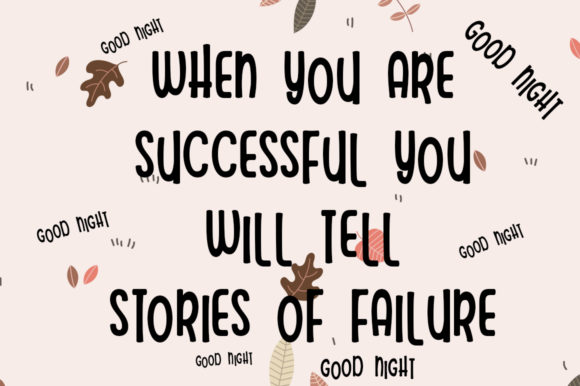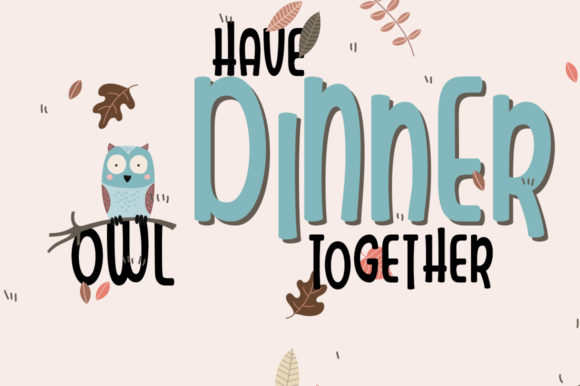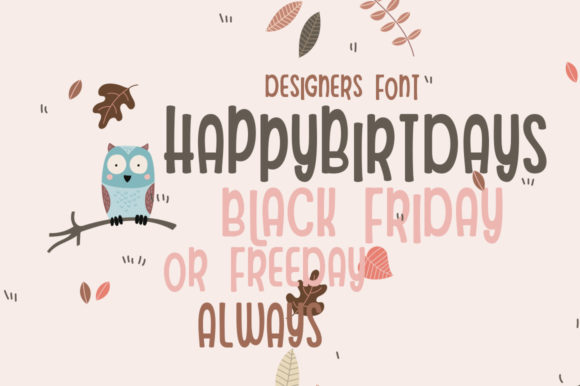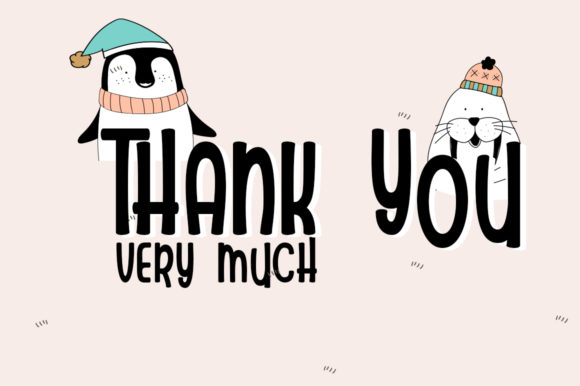
Fisher Ship Font: Elevate Your Designs with a Unique and Friendly Display Font
Are you tired of using the same old fonts in your designs? Look no further than the Fisher Ship Font, a unique and interesting display font that’s sure to take your favorite designs to the next level. With its asymmetrical and friendly design, Fisher Ship Font is perfect for designers and crafters looking to add a touch of personality to their work.
What is Fisher Ship Font?
Fisher Ship Font is a display font that’s designed to make a statement. Its asymmetrical design gives it a playful and dynamic feel, while its friendly aesthetic makes it approachable and inviting. This font is perfect for use in a variety of design projects, from logos and branding to posters and social media graphics.
Key Features of Fisher Ship Font
• Unique and interesting design: Fisher Ship Font’s asymmetrical design sets it apart from more traditional fonts, making it perfect for designers looking to add some personality to their work.
• Asymmetrical and friendly aesthetic: The font’s friendly design makes it approachable and inviting, while its asymmetrical design gives it a dynamic feel.
• Perfect for display text: Fisher Ship Font is designed specifically for use in display text, making it perfect for headlines, titles, and other prominent text elements.
• Easy to read: Despite its unique design, Fisher Ship Font is easy to read, even at smaller sizes.
How to Use Fisher Ship Font in Your Designs
Fisher Ship Font is a versatile font that can be used in a variety of design projects. Here are a few ideas to get you started:
• Logos and branding: Use Fisher Ship Font to create a unique and memorable logo for your business or brand.
• Posters and flyers: Add some personality to your posters and flyers with Fisher Ship Font’s playful and dynamic design.
• Social media graphics: Use Fisher Ship Font to create eye-catching social media graphics that will help your content stand out.
• Web design: Add some personality to your website with Fisher Ship Font, perfect for use in headings and titles.
Tips for Getting the Most Out of Fisher Ship Font
Here are a few tips for getting the most out of Fisher Ship Font:
• Use it sparingly: Fisher Ship Font is a display font, so it’s best used sparingly to add emphasis to key text elements.
• Experiment with colors: Fisher Ship Font looks great in a variety of colors, so don’t be afraid to experiment and find the perfect hue for your design.
• Pair it with other fonts: Fisher Ship Font pairs well with a variety of other fonts, so try pairing it with a sans-serif font for a bold and modern look.
Whether you’re a seasoned designer or just starting out, Fisher Ship Font is a great addition to your font library. Its versatility and unique design make it perfect for use in a variety of projects, from logos and branding to posters and social media graphics. So why not give Fisher Ship Font a try and see how it can take your designs to the next level?